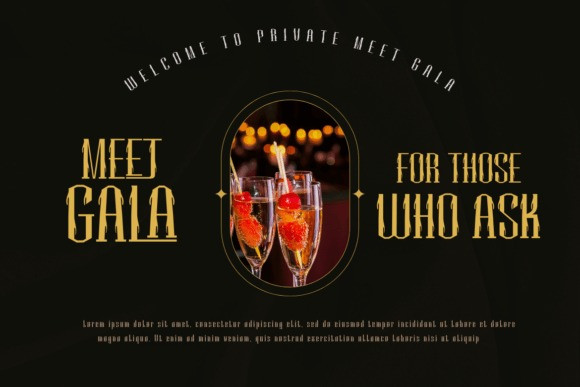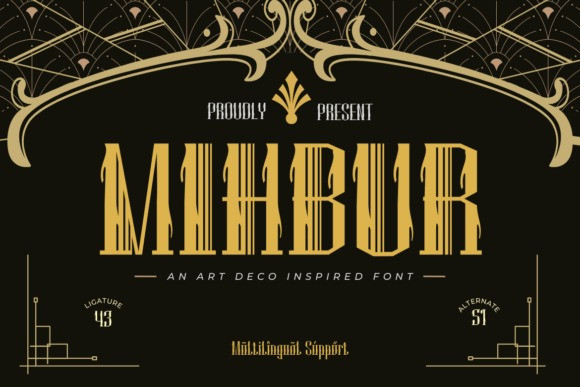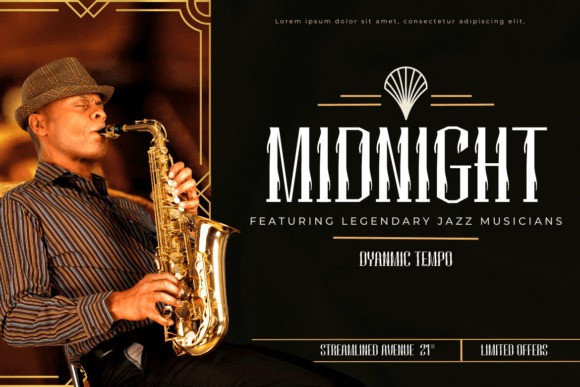
Mihbur Font
Introducing Mihbur Display Font , a font that exudes elegance and sophistication. With its sleek lines and geometric shapes, this font captures the essence of the Art Deco movement while also offering a modern twist. Whether you’re designing invitations, posters, or branding materials, Mihbur is the perfect font to add a touch of vintage glamour to your work.